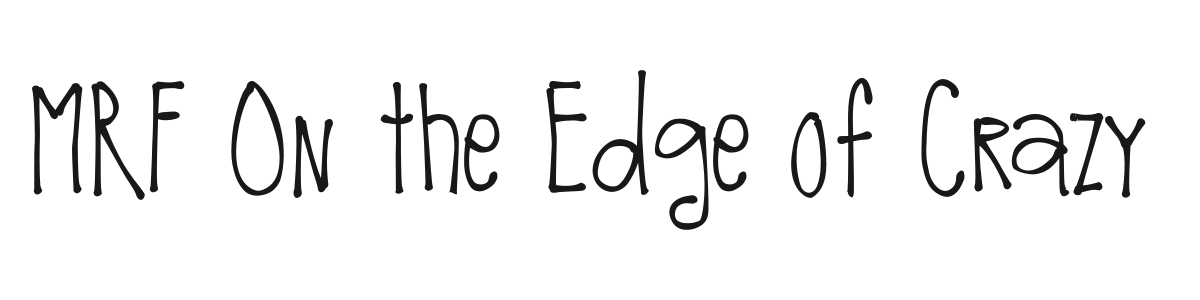
MRF On the Edge of Crazy
MRF On the Edge of Crazy is a thin, condensed handwritten face from Sabrina Schleiger with a restless, slightly unhinged quality to its letterforms. The strokes are lightweight and narrow but full of personality, with quirky inconsistencies that make it feel genuinely scribbled rather than digitally smoothed out. It works well for informal headings, personal projects, and anywhere you want type that feels spontaneous and a little unpredictable.